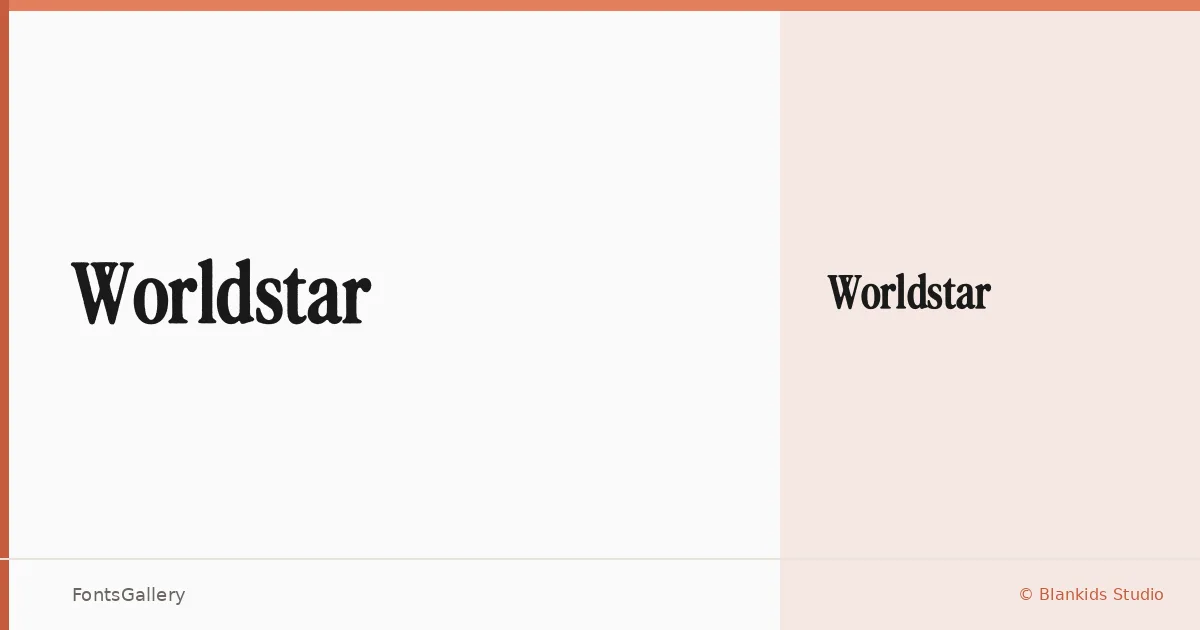
About Worldstar Font
There is a deliberate heaviness to the serifs here — the kind that anchors a headline to the page and refuses to be ignored. Worldstar is a slab serif designed by Bangkit Tri Setiadi at Blankids Studio, delivered as a single Regular weight in TTF format. The bracketed slabs carry a vintage authority that feels rooted in editorial and commercial lettering traditions rather than in digital novelty.
The mood sits squarely in classic and professional territory, with enough weight in the strokes to read as bold even at a single style. That single cut — Regular — is the whole family, so the design earns its keep through structure rather than a range of weights. The letterforms have the kind of composed, period-confident character that suits branding work and large-scale applications where presence matters more than subtlety.
It earns its place in headlines, poster type, logo lockups, and magazine mastheads — contexts where a slab with vintage credibility does real work. For body text or supporting type, pairing with a clean sans like Helvetica or Aileron keeps contrast sharp, while choices like Ballmain, Batoshi, or Alexandria can introduce complementary personality depending on the tone of the project.